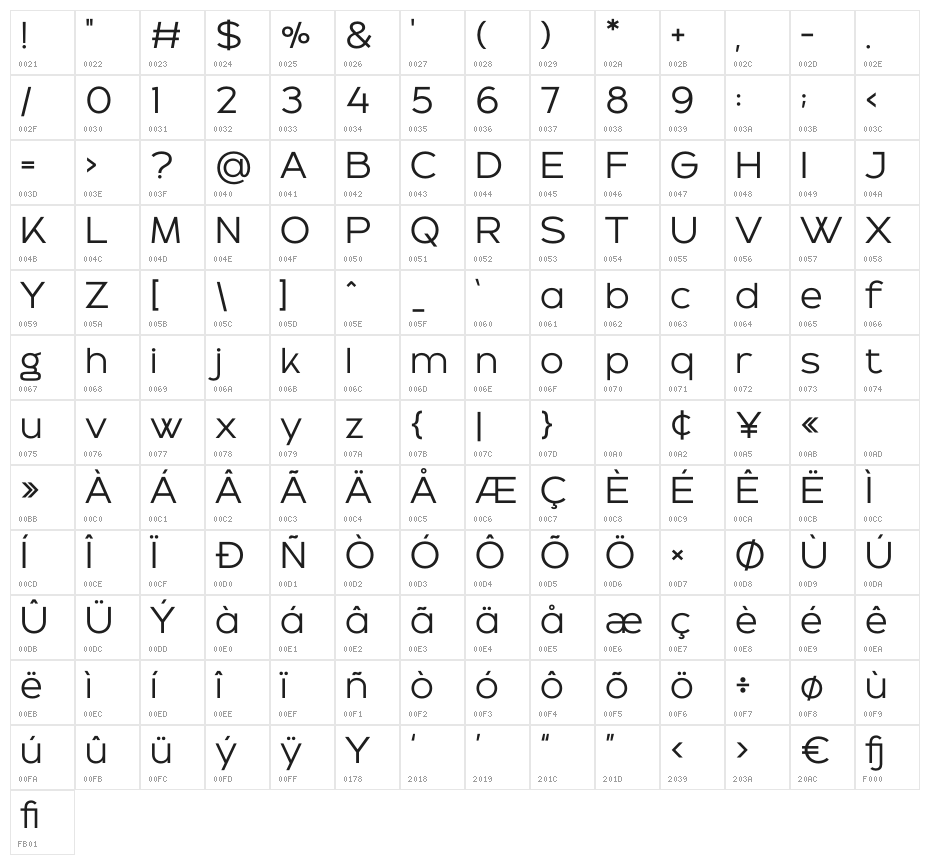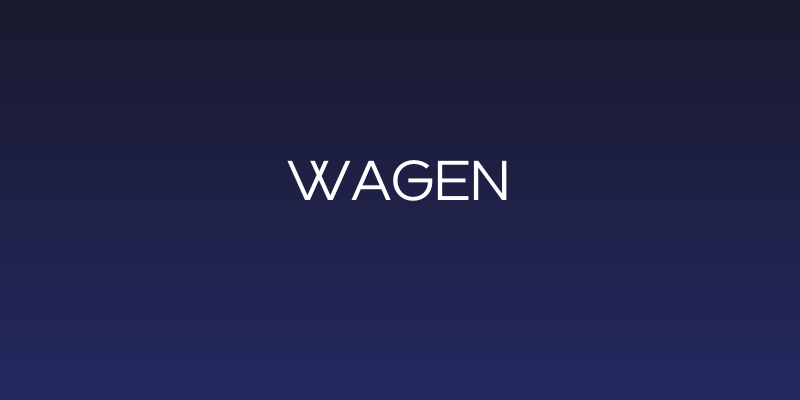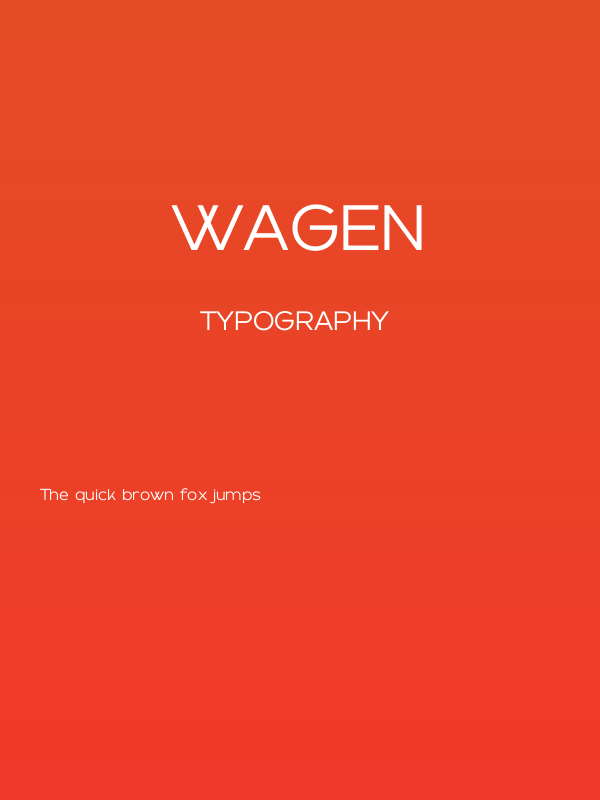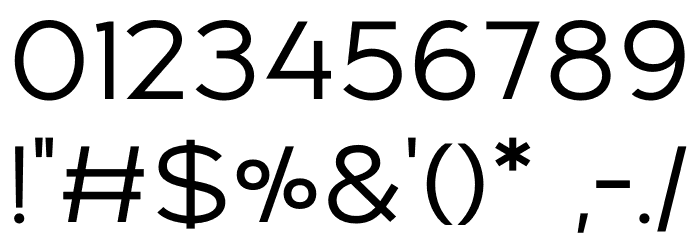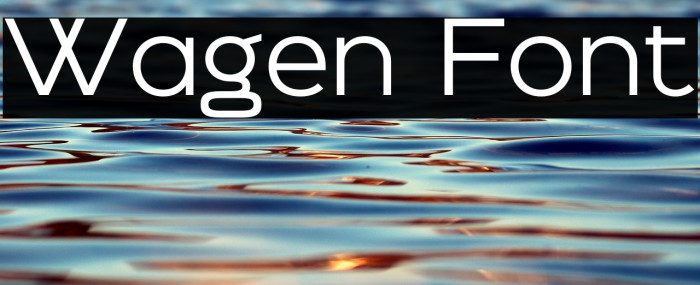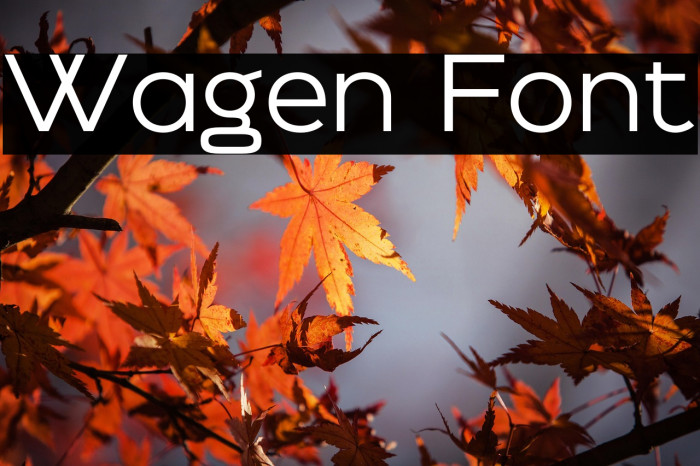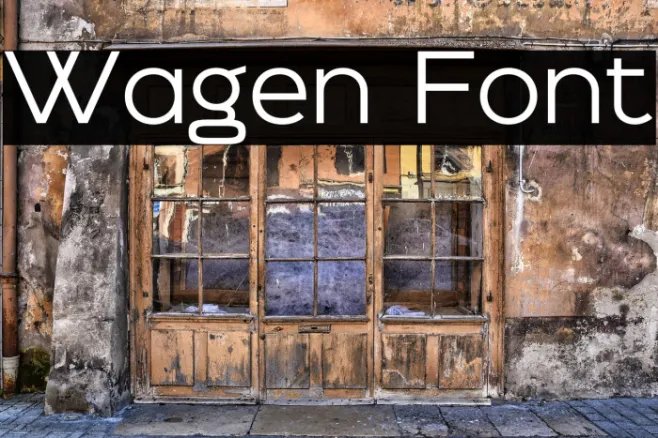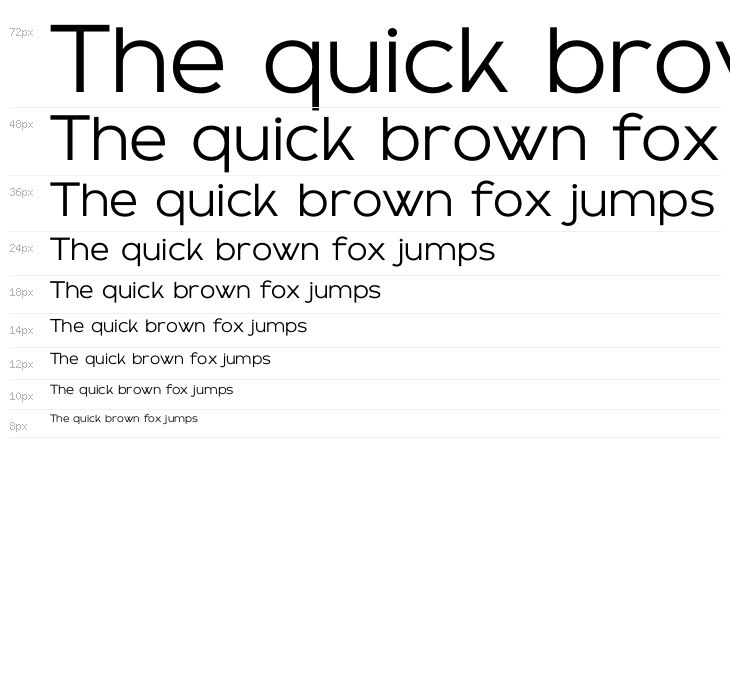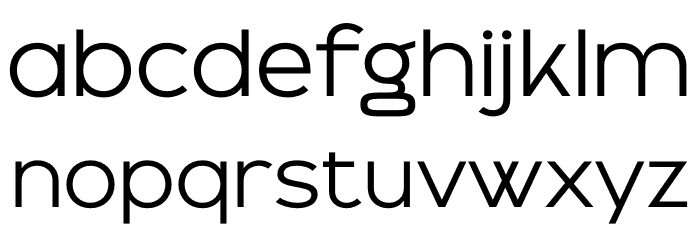
Wagen Font
Wagen Description
This font features a clean and modern sans-serif design, characterized by its geometric shapes and consistent line thickness. The letters are well-proportioned, with a harmonious balance between curves and straight lines. The uppercase and lowercase characters maintain a uniform appearance, contributing to a cohesive look. The numerals are clear and legible, making them suitable for various applications. Special characters are included, providing versatility for different contexts. The overall design is minimalistic, emphasizing clarity and readability.
| Proposed Projects | Ideal for branding, digital interfaces, advertising, and editorial design where clarity and modern aesthetics are desired. |